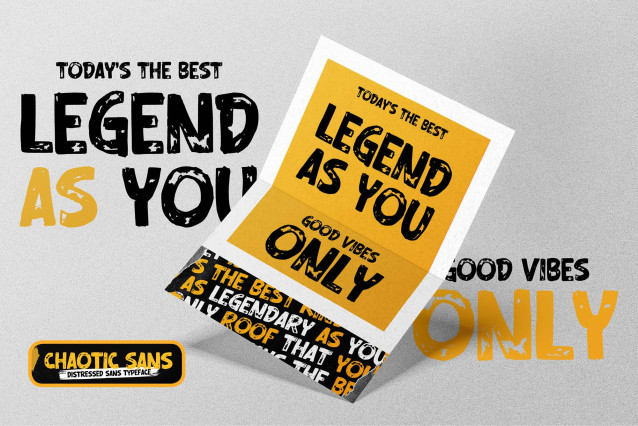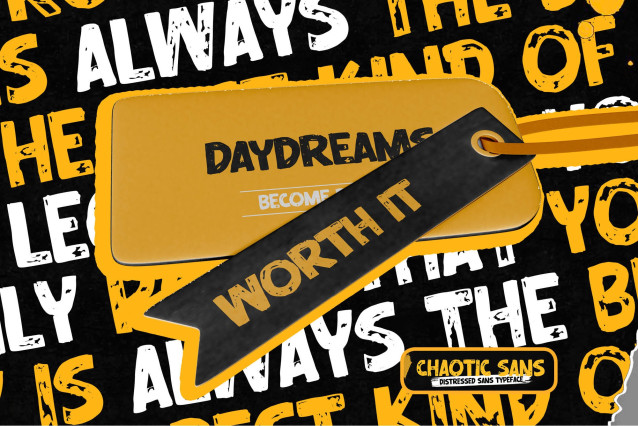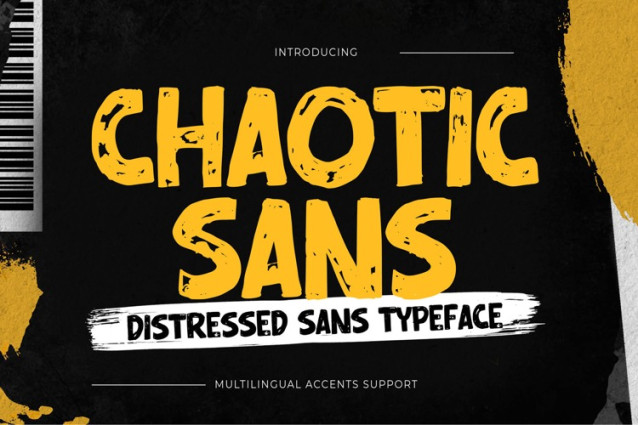
Chaotic Sans Font
Chaotic Sans Font is an aged Sans font, written in an improvisational and rapid style. The letters are created using a brush in Procreate, then carefully edited and redrawn into vector format. That’s why Chaotic Sans has a stylish and strong character, giving your text a more natural look and a more modern feel.
Chaotic Sans is well-suited for home decor design, branding projects, logo design, printed product packaging, invitations, greeting cards, headlines, letterhead logos, letterheads, posters, labels, cartoons and comics, etc.